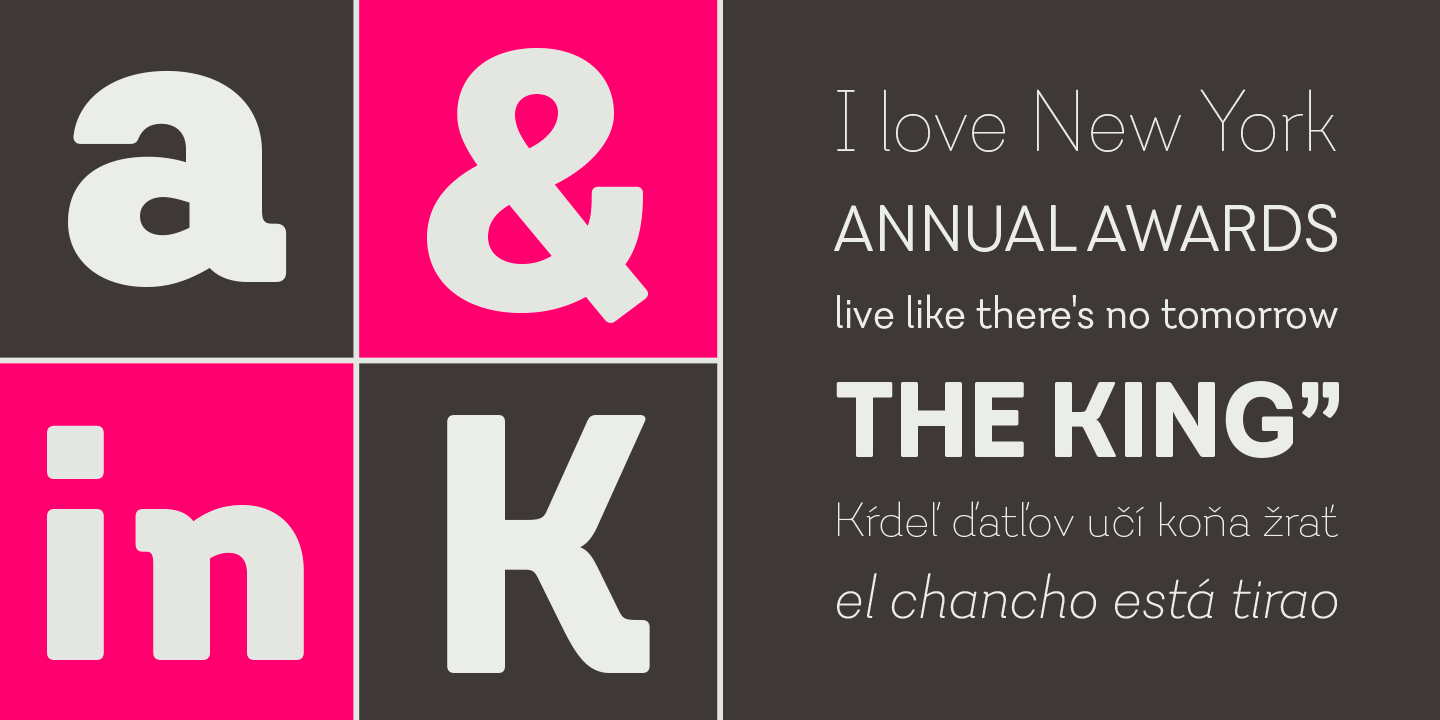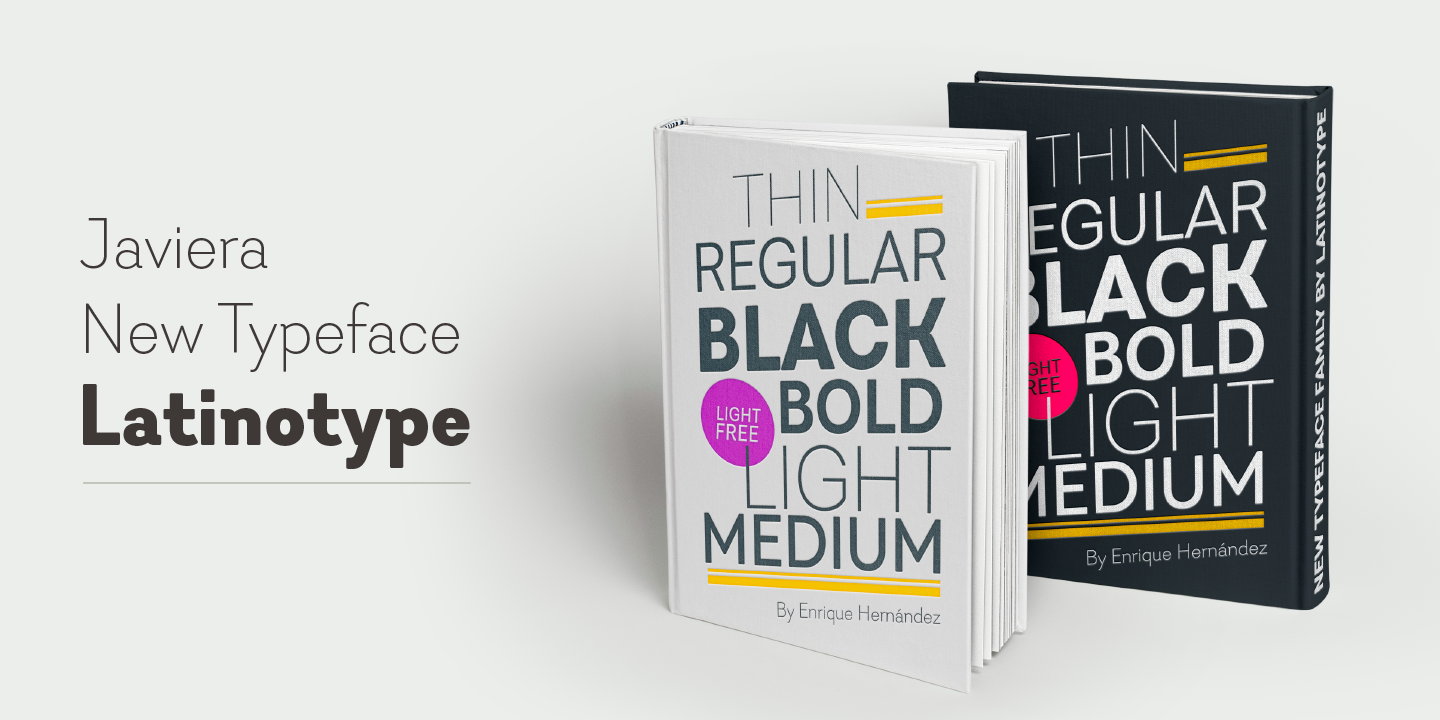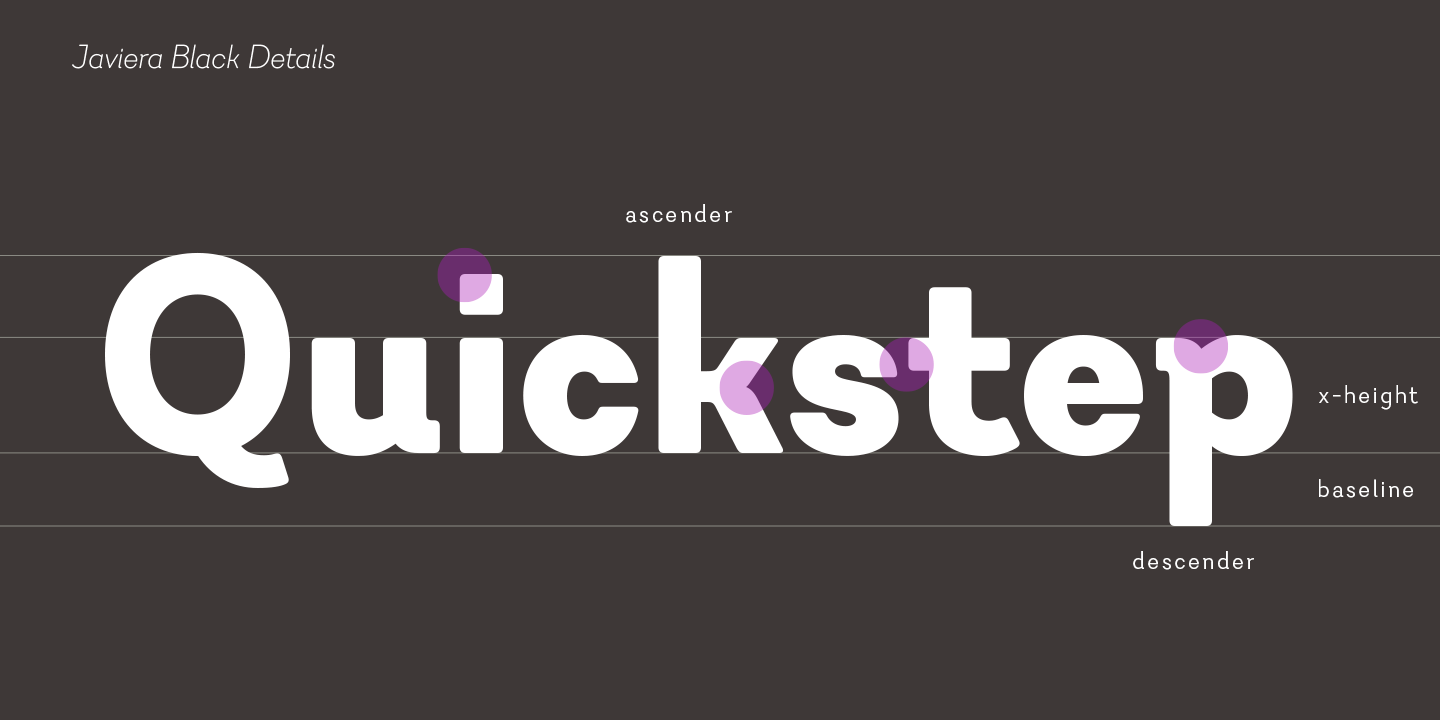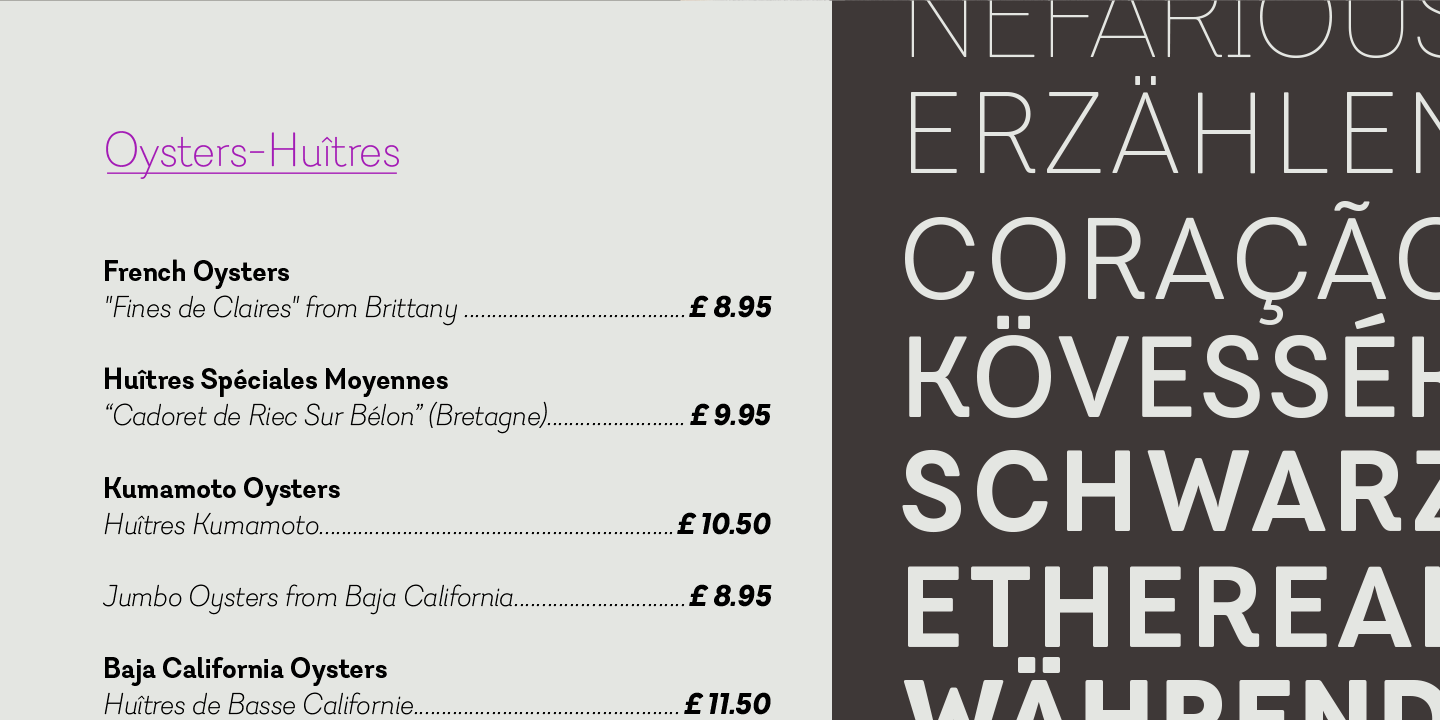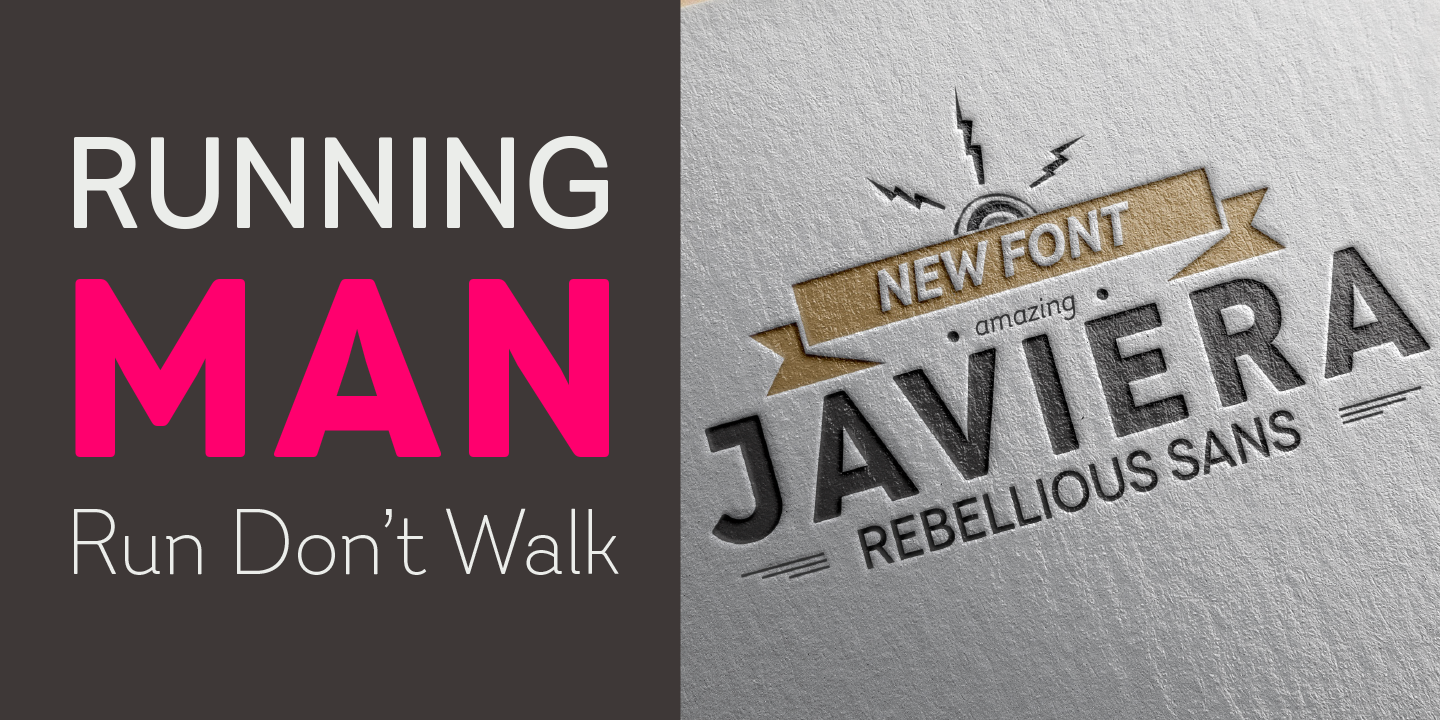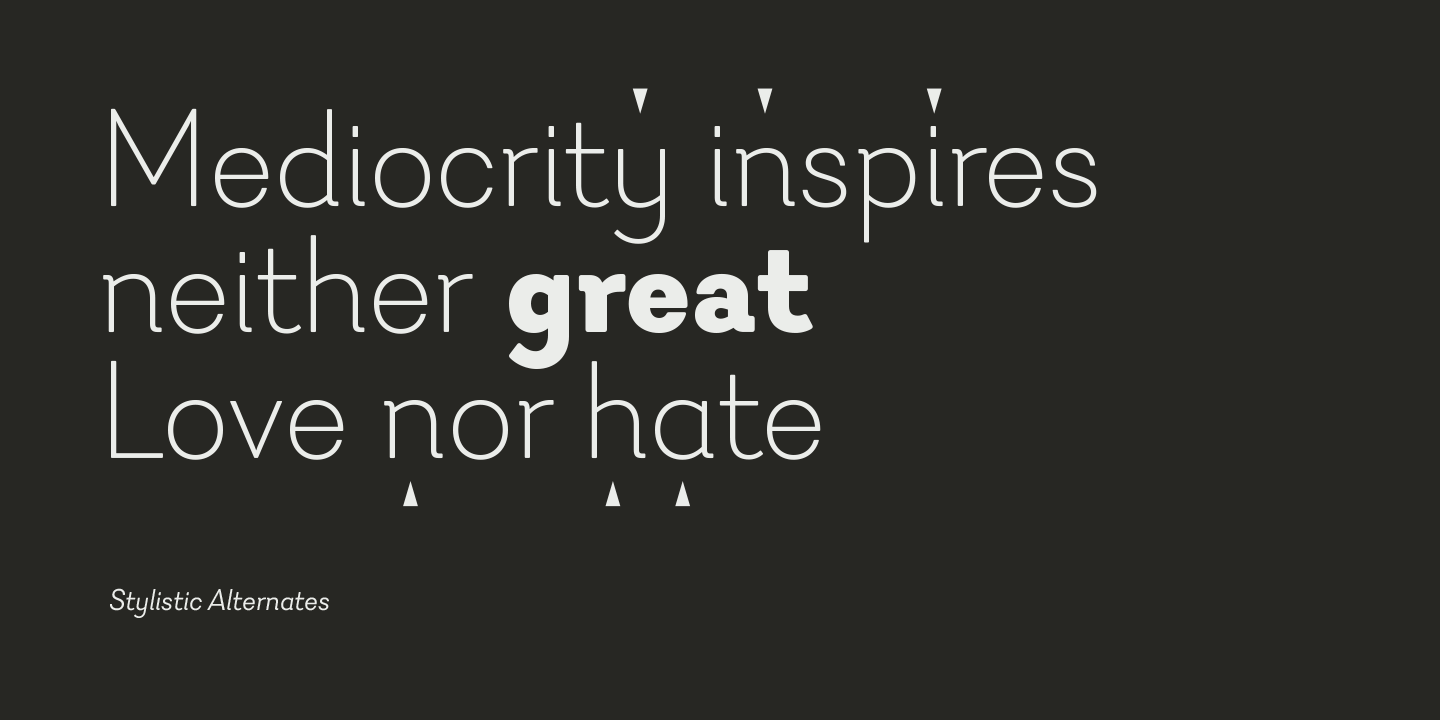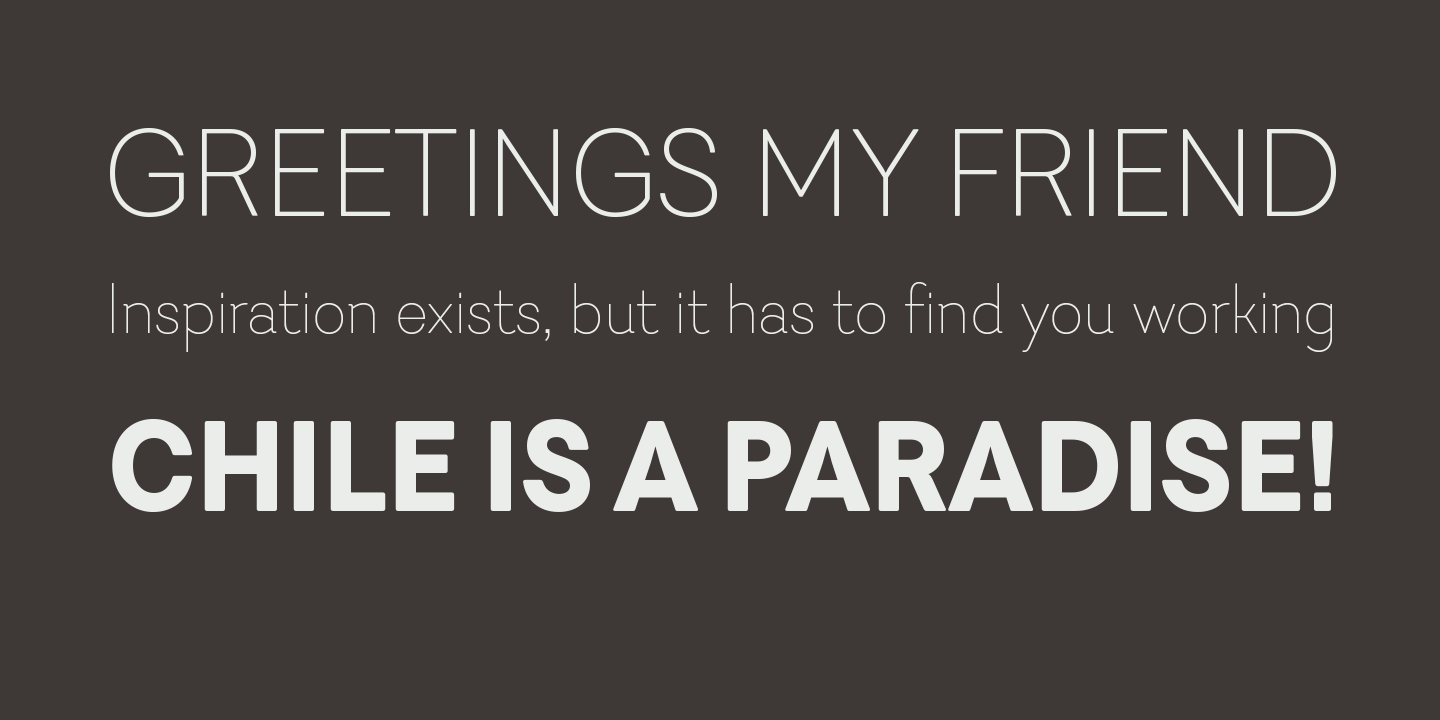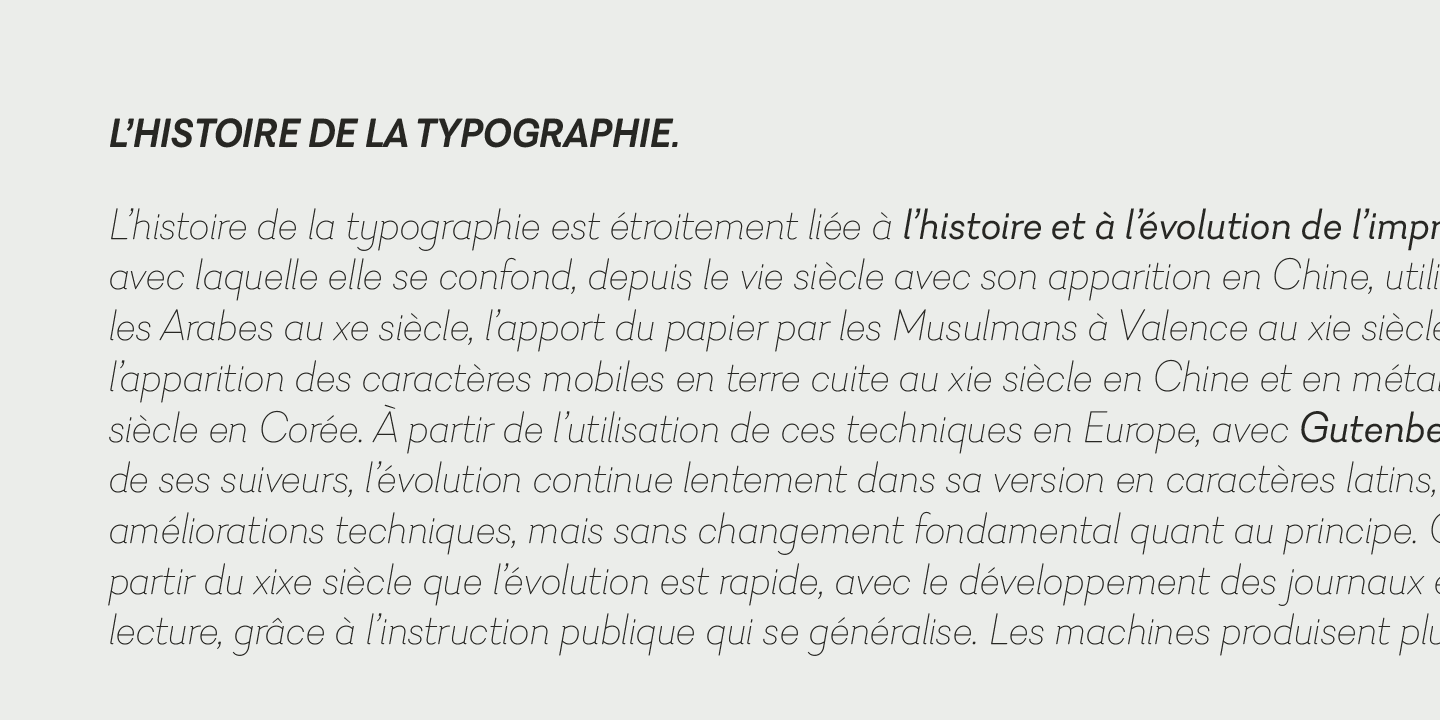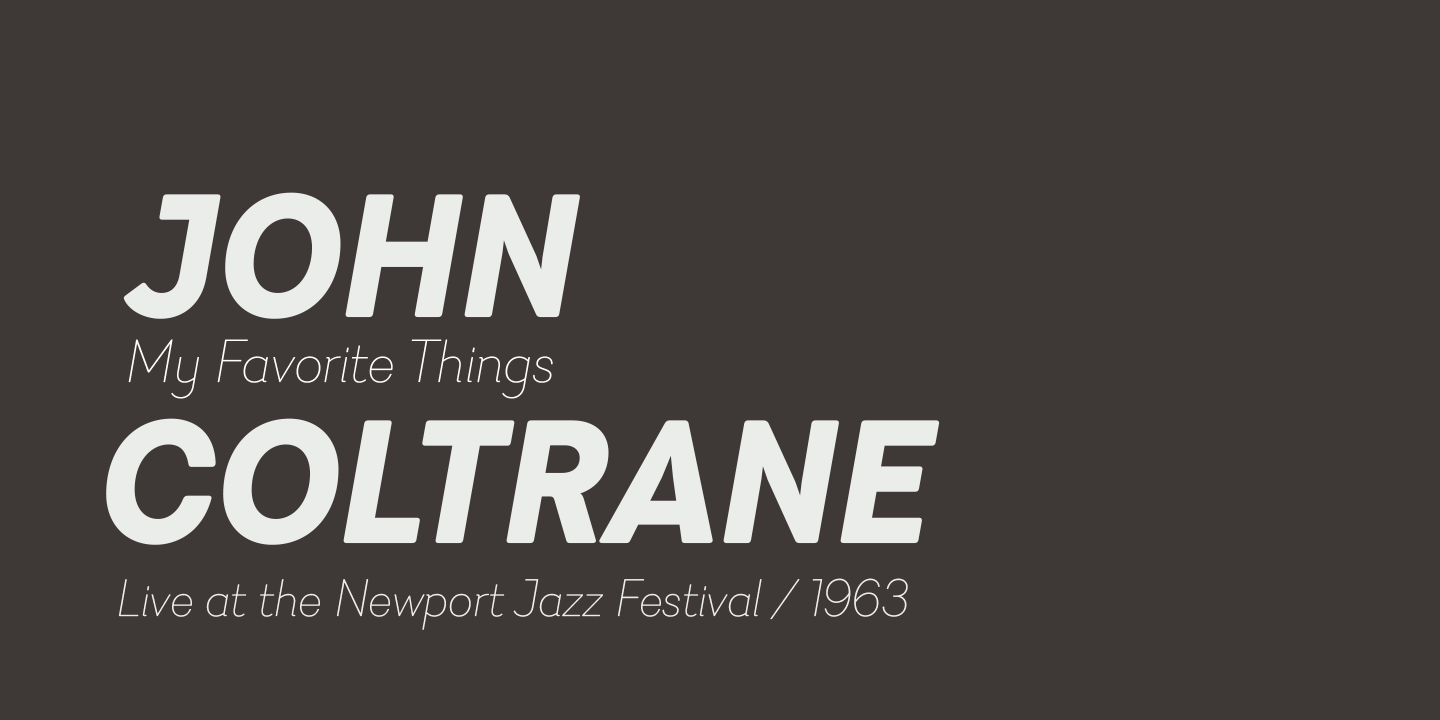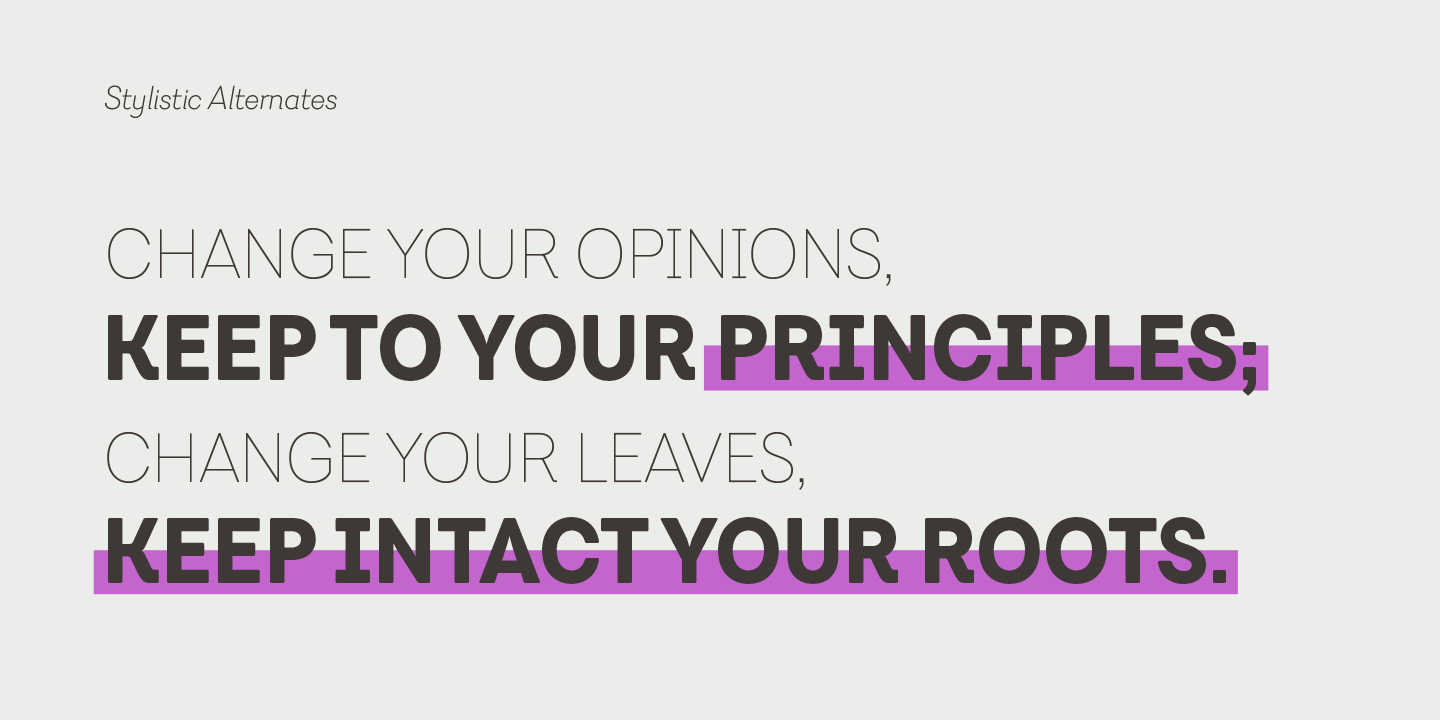
Javiera Family (12 fonts)
Curves and rounded terminals make Javiera a smooth, friendly and versatile typeface, well-suited for branding, magazines and publishing projects. User can take more advantage of the versatility of the font by enabling alternative characters included in the set.
Javiera comes in 6 styles—from Thin to Black—plus matching italics, giving a total of 12 fonts. The font’s extreme weights are perfect for display use. Javiera family contains a set of more than 400 characters and supports over 200 different languages.
OpenType features: Ligatures, Alternates